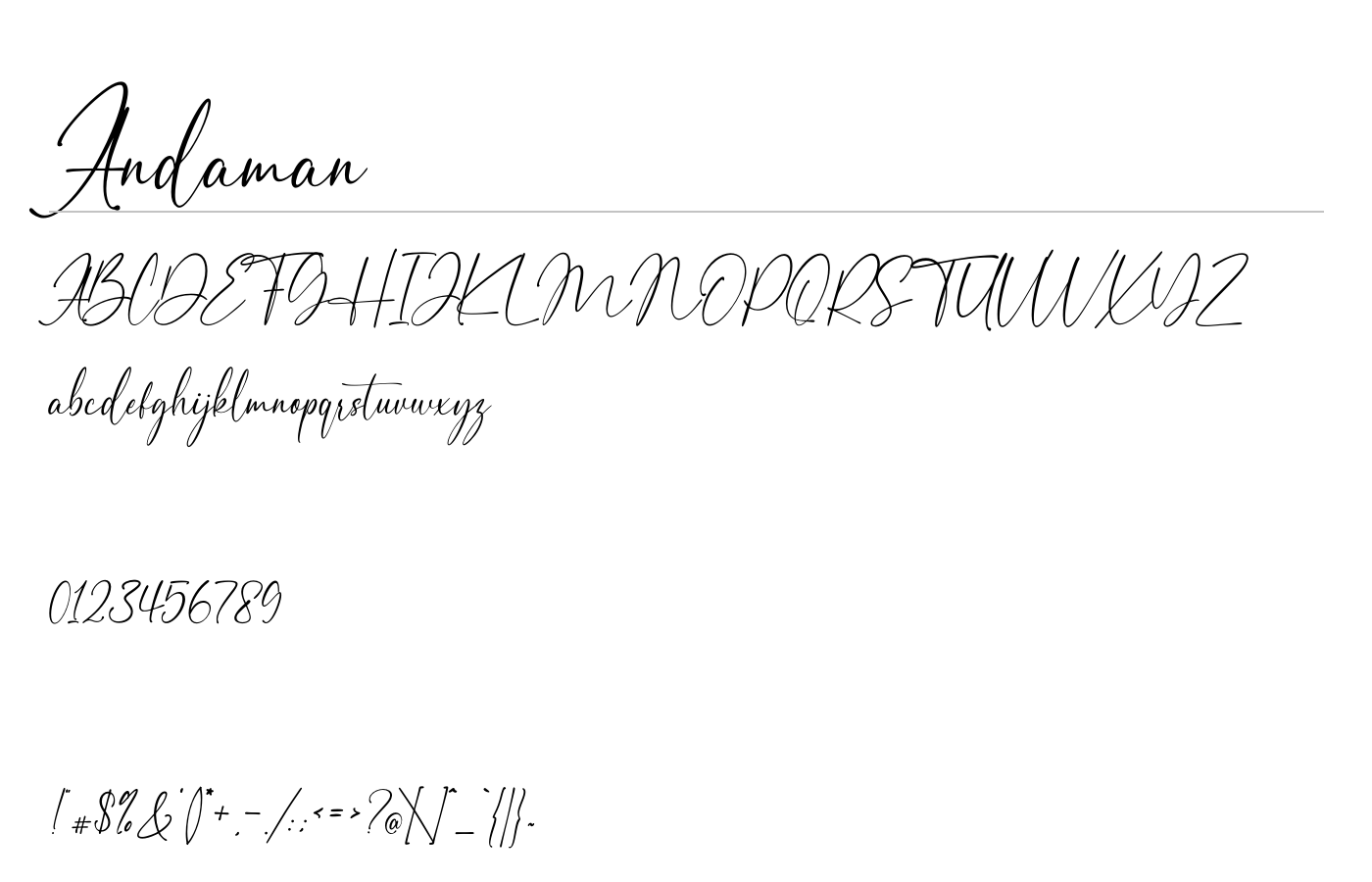
Andaman is a delicate, handwritten script font featuring slender, flowing strokes that give it an elegant and personal touch. Its tall x-height and graceful letterforms create a refined yet approachable feel, making it perfect for invitations, branding, and creative projects that seek a stylish, handwritten aesthetic. This font works beautifully in designs that aim to convey sophistication and warmth without rigidity.
Andaman Font
About Andaman Font
| Designer | Revo Farisky |